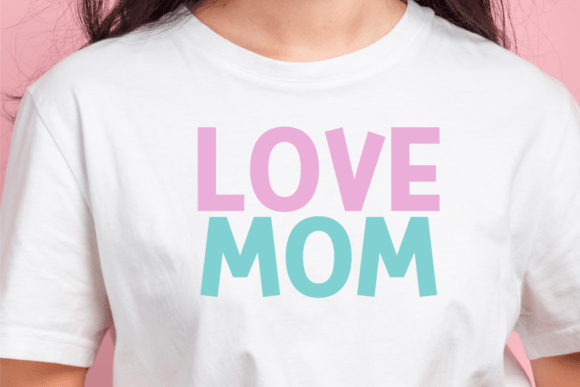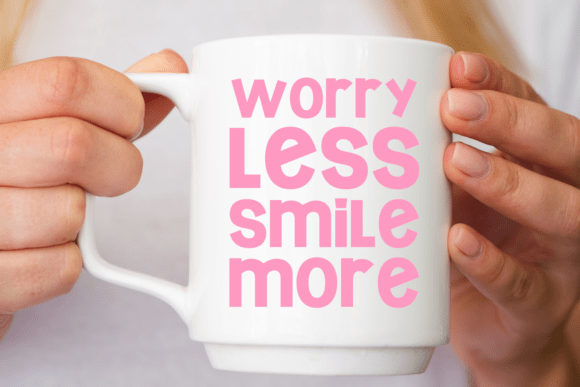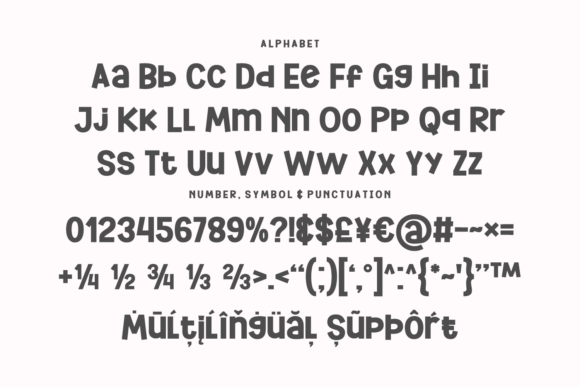
Funky Truth Font: The Ultimate Display Typeface for Whimsical Designs
Are you a designer or crafter on the lookout for a font that exudes joy, camaraderie, and a touch of feminine charm? Look no further than the Funky Truth Font, a captivating typeface that’s sure to bring a smile to your face. This delightful display font is the perfect fit for children’s books, festive invitation designing, and creative projects that require a sense of warmth and congeniality.
The Epitome of Fun and Whimsy
Funky Truth Font is a masterful blend of fun and whimsy, making it an ideal choice for designers who want to add a playful touch to their projects. Its cheerful curves and warm temperament evoke sentiments of friendship and delight, making it perfect for designs that require a lighthearted and approachable feel. Whether you’re creating a children’s book, a festive invitation, or a social media graphic, Funky Truth Font is sure to bring a sense of joy and playfulness to your design.
A Font that’s Full of Personality
What sets Funky Truth Font apart from other typefaces is its unique personality. This charming display font has a warm and affable temperament that’s sure to resonate with designers and audiences alike. Its feminine charm and whimsical feel make it perfect for designs that require a touch of elegance and sophistication. Whether you’re creating a logo, a brochure, or a website, Funky Truth Font is sure to add a personal touch that sets your design apart.
Perfect for Children’s Books and Festive Invitations
Funky Truth Font is a natural fit for children’s books and festive invitations. Its playful and whimsical feel makes it perfect for designs that require a sense of wonder and excitement. Imagine using Funky Truth Font to create a children’s book that’s full of colorful illustrations and engaging text. The font’s cheerful curves and warm temperament will draw readers in and make the story come alive. Similarly, Funky Truth Font is perfect for festive invitations, such as birthday parties, baby showers, and holiday gatherings. The font’s playful feel will set the tone for a fun and celebratory event.
Tips for Using Funky Truth Font
Why Designers Love Funky Truth Font
Designers love Funky Truth Font for its unique personality and versatility. This charming display font can be used in a variety of design projects, from children’s books to festive invitations. Its playful and whimsical feel makes it perfect for designs that require a sense of joy and camaraderie. Additionally, Funky Truth Font is easy to read and understand, making it perfect for designs that require a clear and concise message.
Here are a few frequently asked questions about Funky Truth Font:
• What is Funky Truth Font?
• Funky Truth Font is a captivating display font that’s full of fun and whimsy.
• What is Funky Truth Font used for?
• Funky Truth Font is perfect for children’s books, festive invitations, and creative projects that require a sense of warmth and congeniality.
• Is Funky Truth Font easy to read?
• Yes, Funky Truth Font is easy to read and understand, making it perfect for designs that require a clear and concise message.